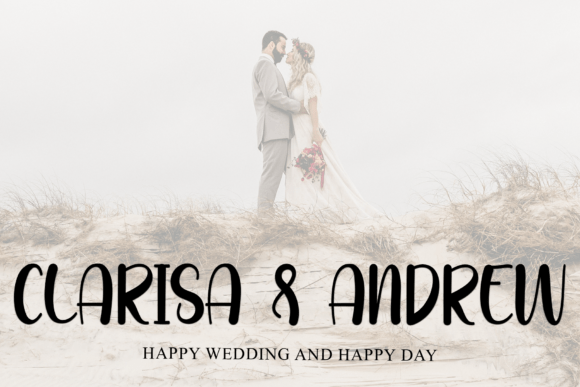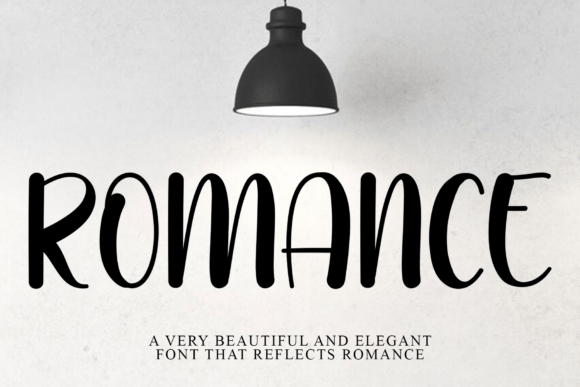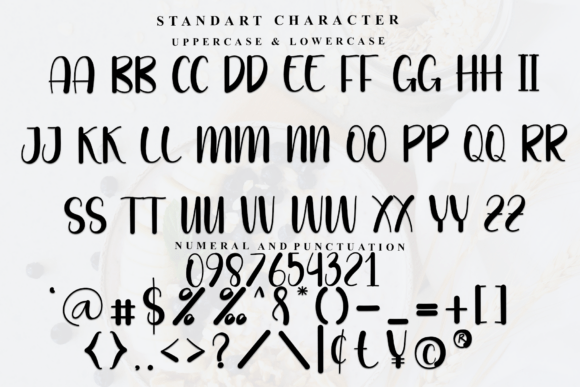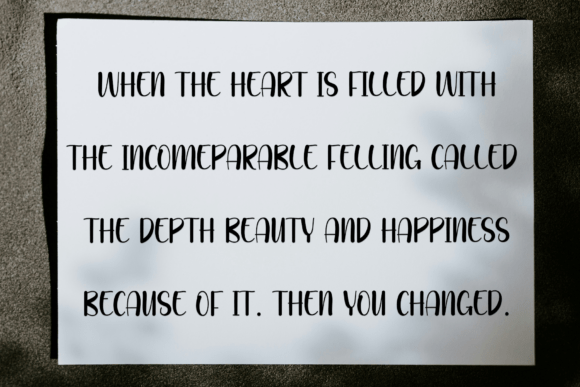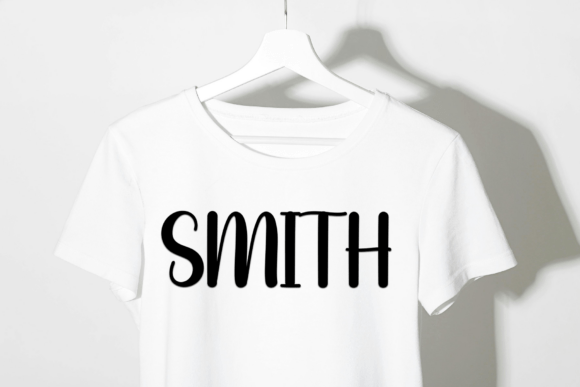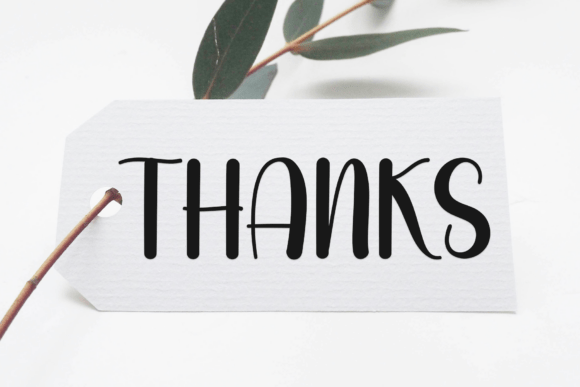
The Designer Font: A Game-Changer for Creative Projects
I’ll never forget the time I was working on a design project for a client, and I just couldn’t seem to find the right font. The project required something unique, something that would make it stand out from the crowd. I spent hours scouring the internet, trying out different fonts, but nothing seemed quite right. That’s when I stumbled upon the Designer font. It was like a breath of fresh air – soft, unique, and eye-catching. I knew immediately that it was the perfect fit for my project.
I’ve had the pleasure of working with the Designer font for a while now, and I must say, it’s become a staple in my design toolkit. Here’s what I love about it:
- ✨ Unique and distinctive strokes: The Designer font has a special character that’s hard to find in other fonts. Its soft, rounded edges make it perfect for a wide range of creative projects.
- ✅ Versatile: Whether I’m working on a design project, crafting, or creating art, the Designer font always seems to fit in.
Of course, no font is perfect, and there are a few quirks to be aware of:
- 🤔 Limited kerning options: While the font looks great in most cases, I’ve noticed that the kerning can get a bit wonky in certain situations.
- ⚠️ Not suitable for body text: The Designer font is best used for headings, titles, or creative projects – it’s not ideal for long blocks of text.
Exploring OpenType Features, Glyphs, and Stylistic Alternates
The Designer font comes with a range of OpenType features, glyphs, and stylistic alternates that can help you get creative with your designs. Here are a few tips:
- Experiment with Stylistic Alternates to create unique variations of the font.
- Take advantage of OpenType Features like fractions, ordinals, and swashes to add extra flair to your designs.
The Story Behind the Designer Font
The Designer font was created by a team of designers who wanted to craft a unique and versatile font that would inspire creativity. With its soft, rounded edges and distinctive strokes, the font was designed to be a go-to choice for designers, crafters, and creative hobbyists.
| Font Name | Designer Font |
| Is the Designer font suitable for body text? | No, the Designer font is best used for headings, titles, or creative projects. It’s not ideal for long blocks of text. |